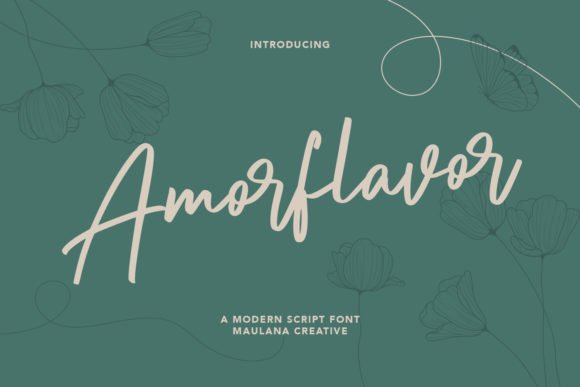
Introduction to Amorflavor Font
Amorflavor is a chic, refined script font that emanates sophistication and elegance.
Its stylish alternates and ligatures make this font the perfect match for any project .
Key Features of Amorflavor Font
Why Choose Amorflavor Font?
Amorflavor Font offers exceptional quality and versatility, making it a valuable addition to your design toolkit. Whether you’re creating for personal projects or commercial use, Amorflavor Font delivers professional results.